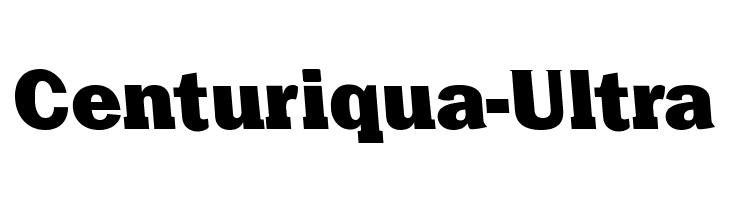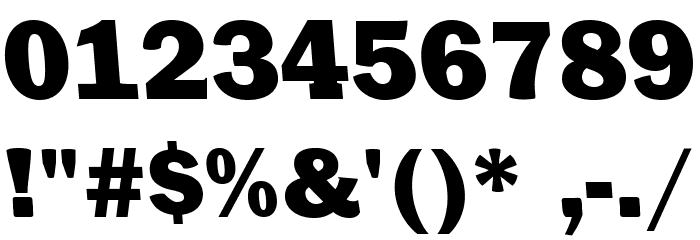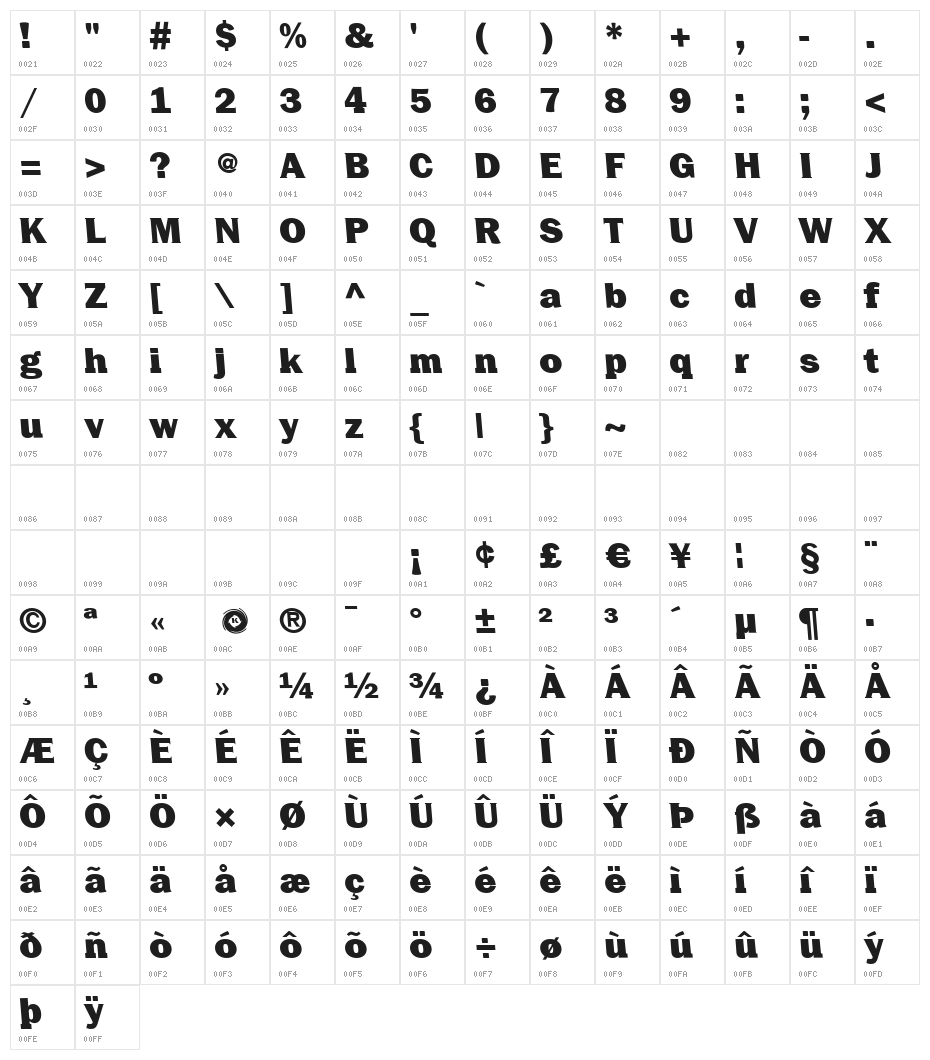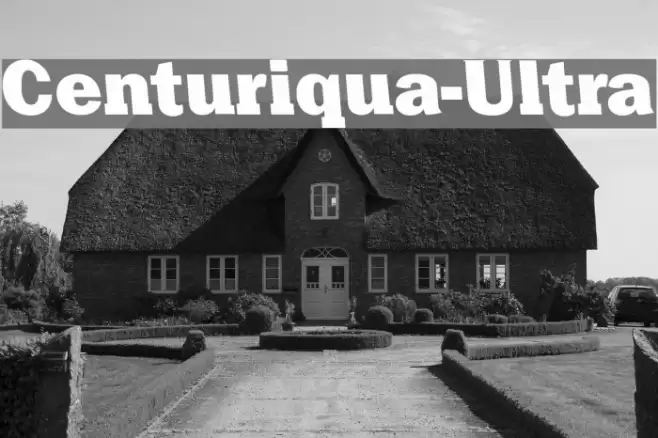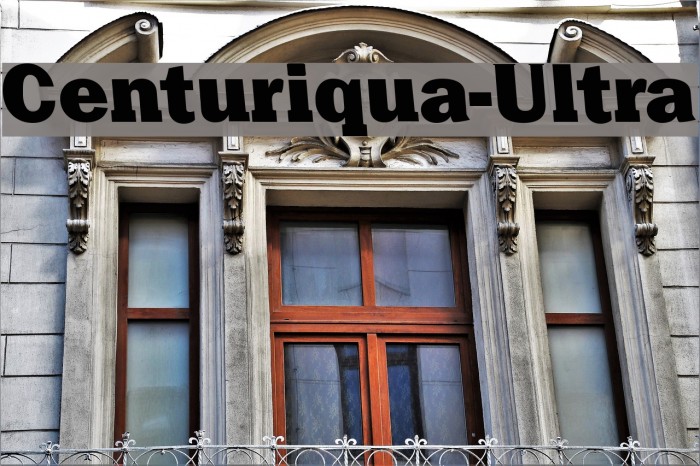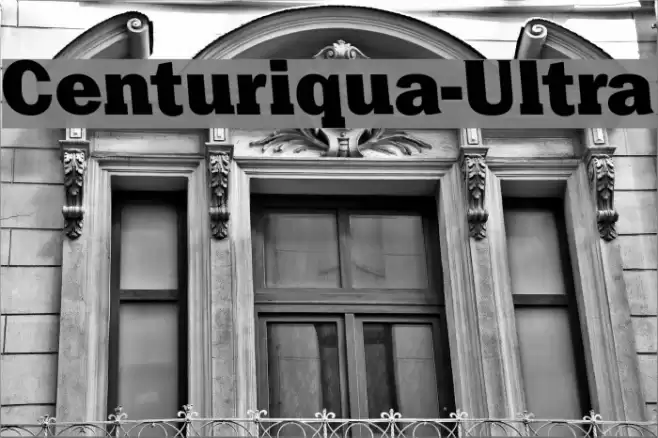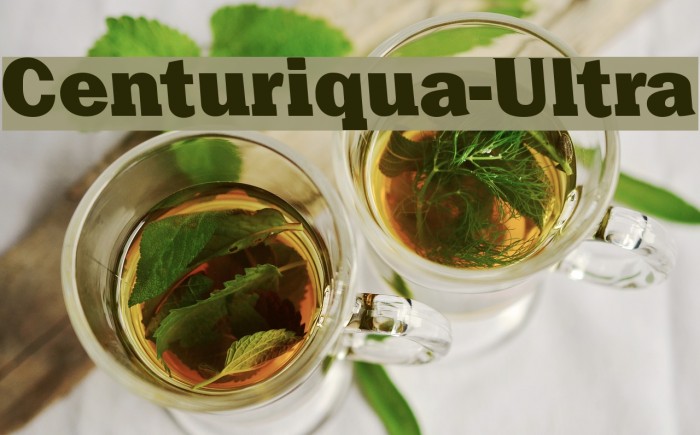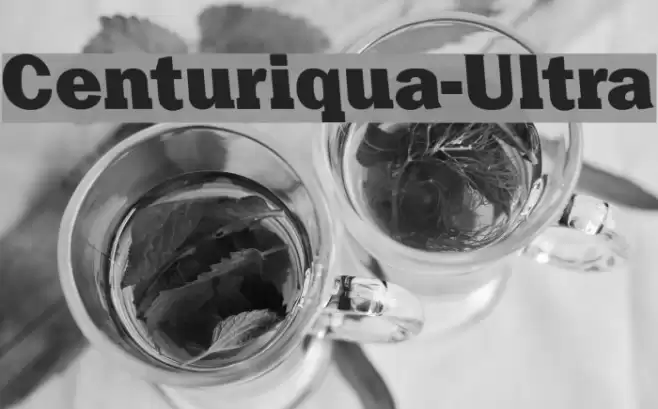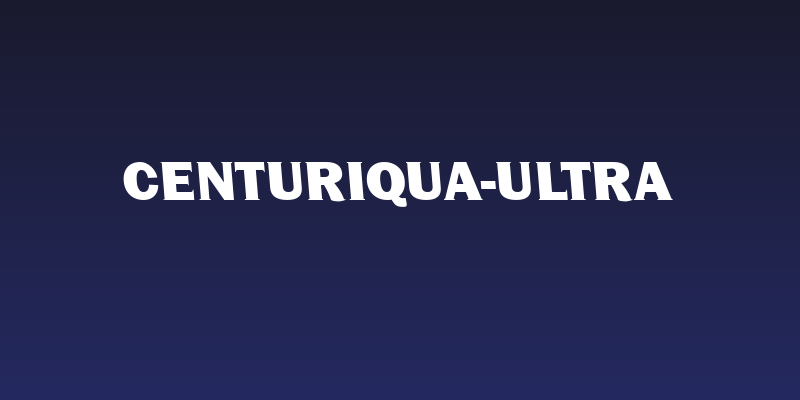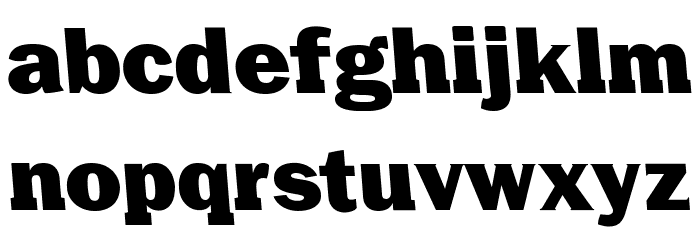
Centuriqua-Ultra Font
Centuriqua-Ultra Description
This font features bold, strong characters with a commanding presence. The uppercase letters are robust and impactful, making them ideal for headlines and titles. The lowercase letters maintain the same boldness, ensuring consistency across different text sizes. Numbers and special characters are equally bold, providing a cohesive look throughout. The font's design is straightforward yet powerful, with a slight slant that adds a dynamic feel. Its thick strokes and minimal contrast make it highly legible, even from a distance.
Proposed ProjectsIdeal for posters, banners, headlines, and branding materials where a strong visual impact is needed.